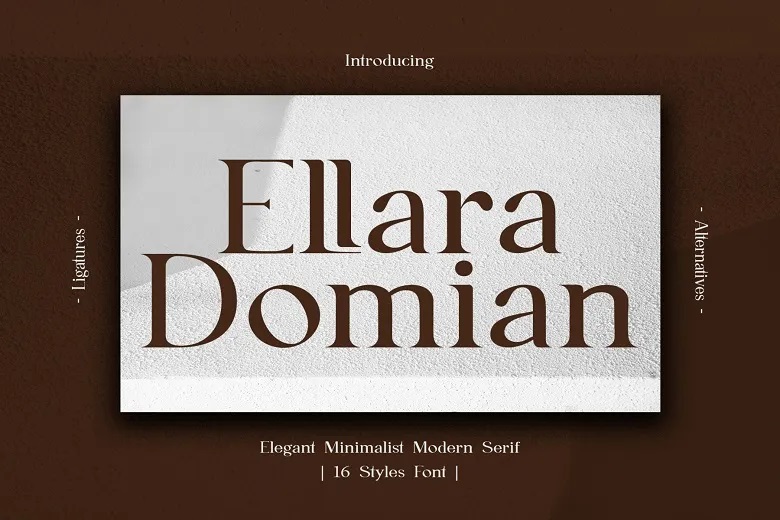
Ellara Domian Font Family
Ellara Domian Font
Ellara Domian is a beautiful and slightly elegant serif font with simple and minimalistic character design. Its sleek design and elegant look will suit projects that need a dash of elegance and classicist.
Ellara Domian Serif Font Family